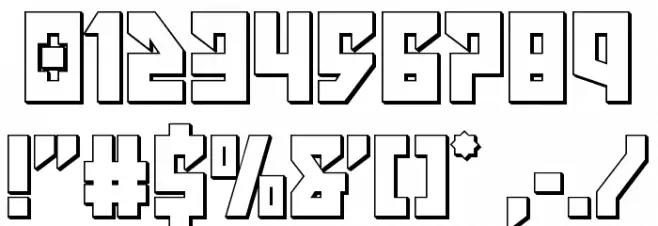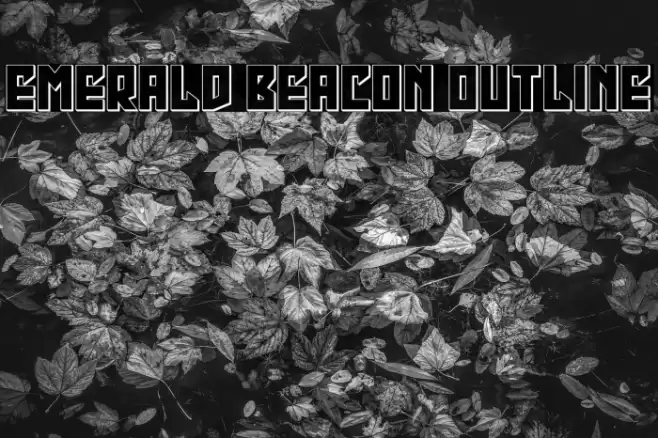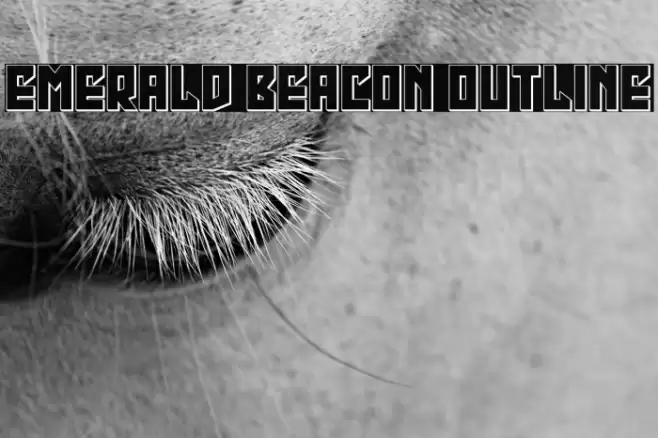
Emerald Beacon Outline Font
Emerald Beacon Outline Description
This font features a bold, geometric outline style that gives it a striking and modern appearance. The characters are constructed with sharp angles and straight lines, creating a sense of strength and structure. The outline design adds a unique dimension, making it stand out in any design project. Each letter and number is distinct, with consistent thickness throughout, ensuring readability while maintaining a decorative flair. The special characters are designed to match the boldness of the alphabet, providing a cohesive look across all elements. This font is ideal for projects that require a strong visual impact.
A bold, geometric outline font with sharp angles and a modern look from Uncategorized fonts.
- Proposed Projects: Ideal for posters, logos, branding, and any design needing a bold statement.